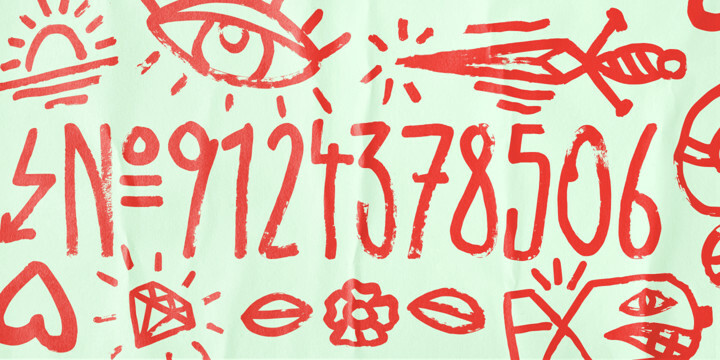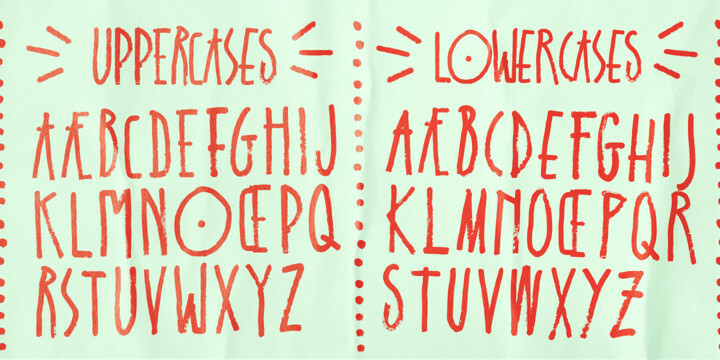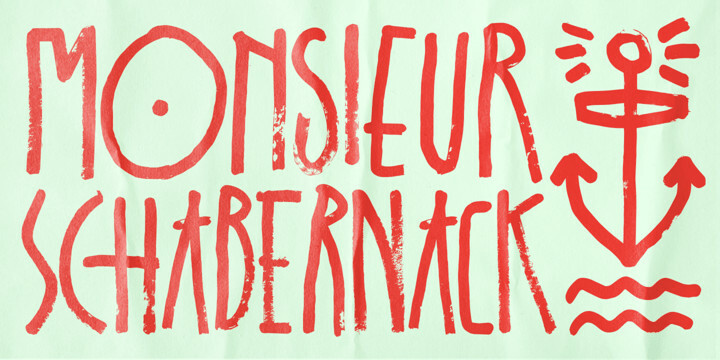
Schabernack One Font
Schabernack One FontSchabernack One is a handwritten brushfont. If you are looking for a funky, doodle style fontface you have found it!